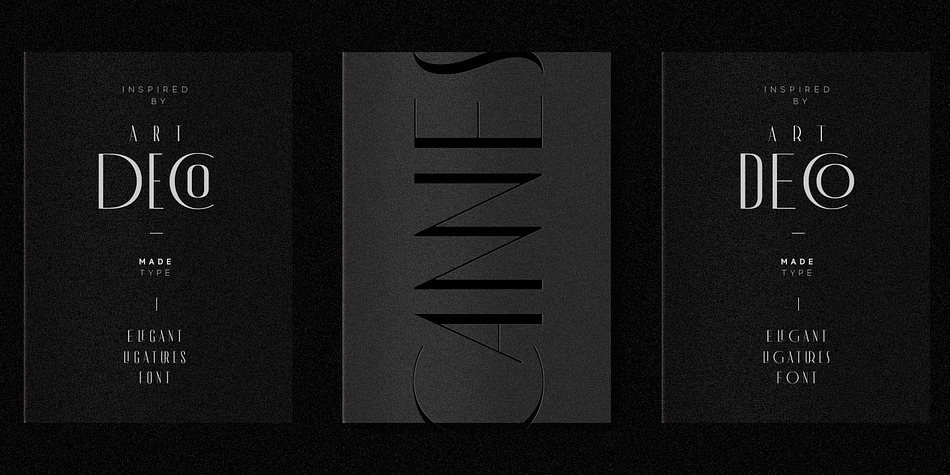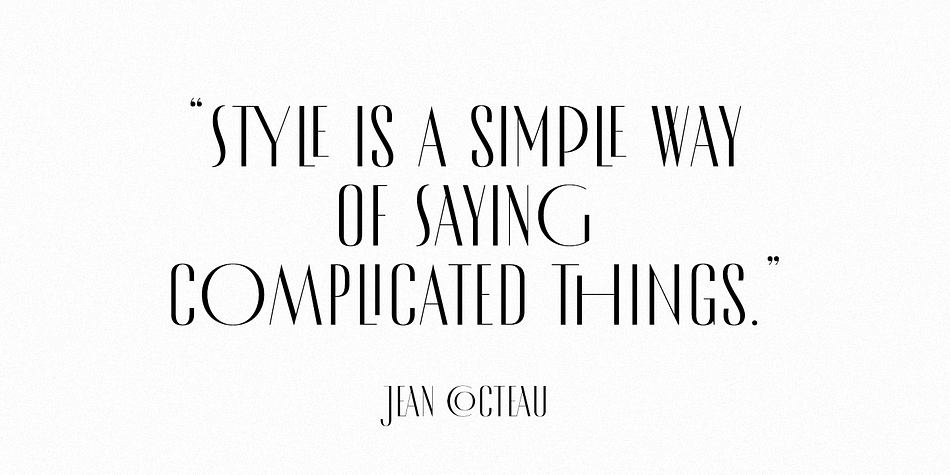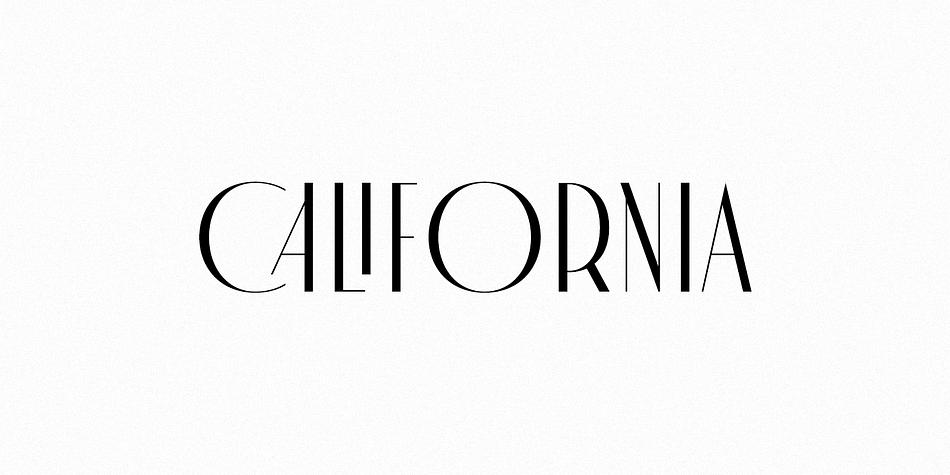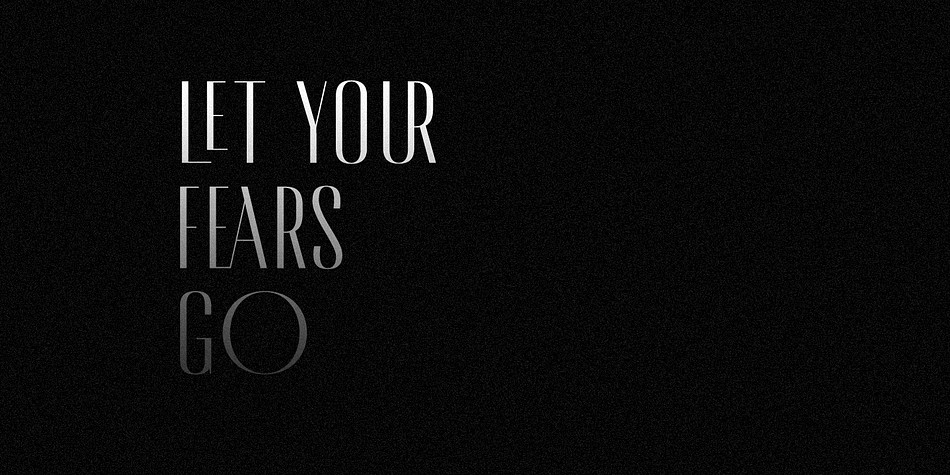
MADE Cannes
Designed by Maxim Schepin and Denis Schepin, MADE Cannes is a display sans and art deco font published by MadeType.
MADE Cannes was inspired by the art deco style. The Cannes allows you to combine between uppercase & lowercase letters, which will allow you to create a unique style!
The Cannes will perfect for many project: posters, fashion, magazines, logos, branding, photography, invitations, advertisements, quotes, etc.